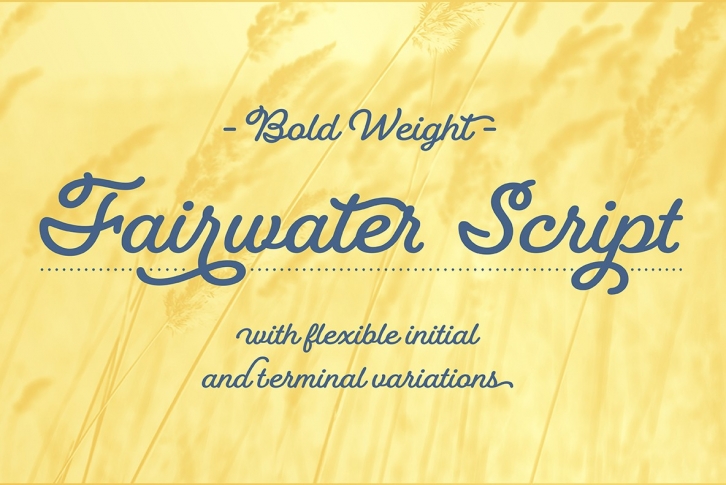
Fairwater Script Bold is a gorgeous font that was realeased on October 1, 2016. The font can be used in many style contexts and design environments. Perfect for invitations, magazines, websites, logos, and more! It was designed by Laura Worthington Type and the file size is 9.66 MB. Thanks for checking out this font!